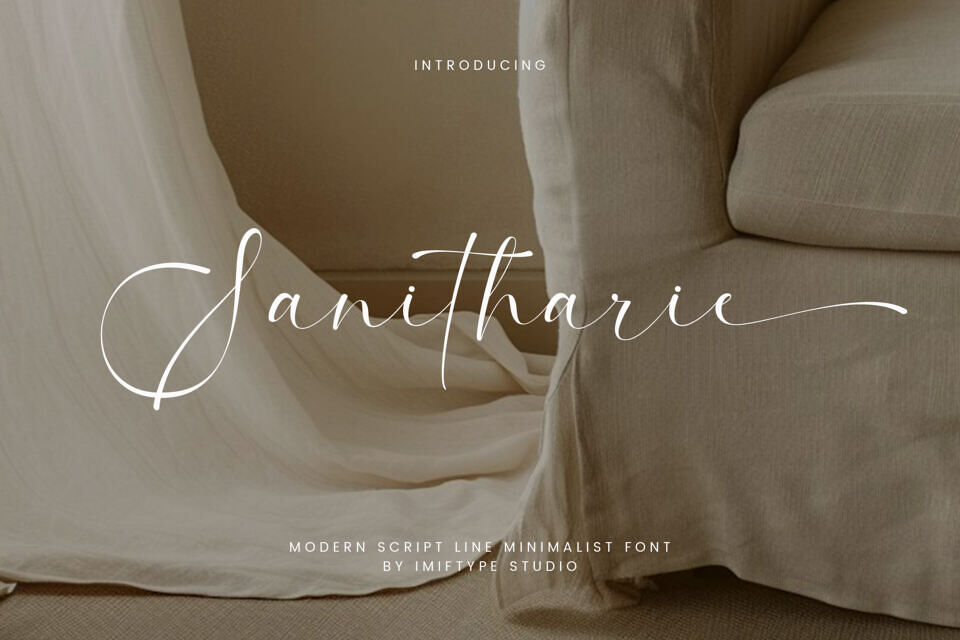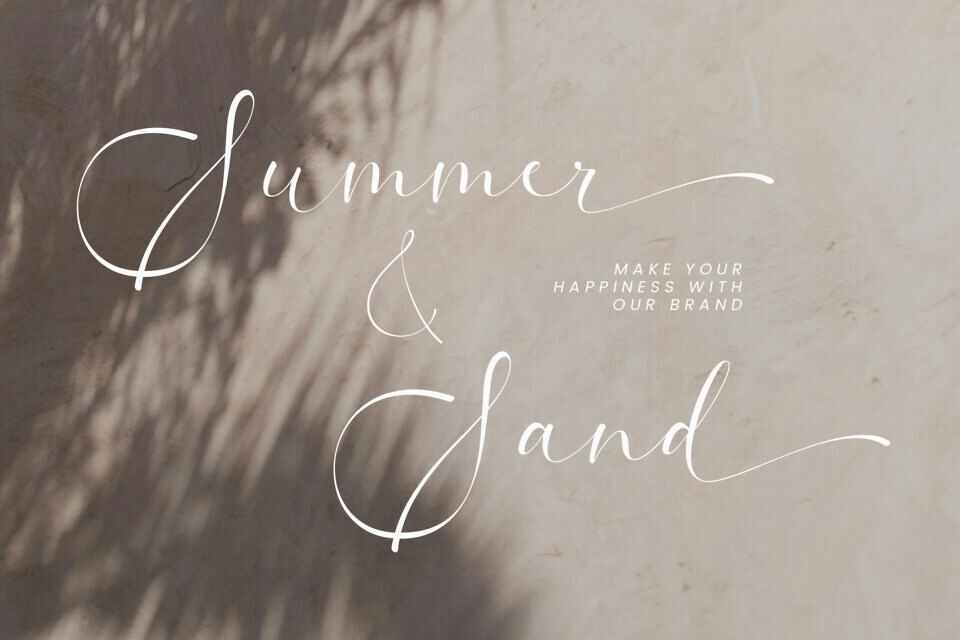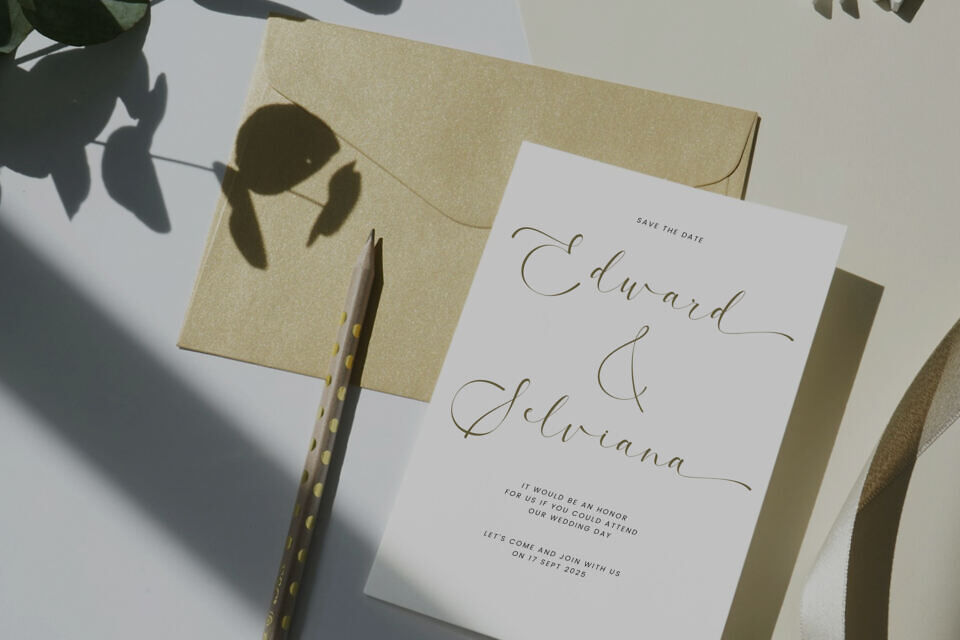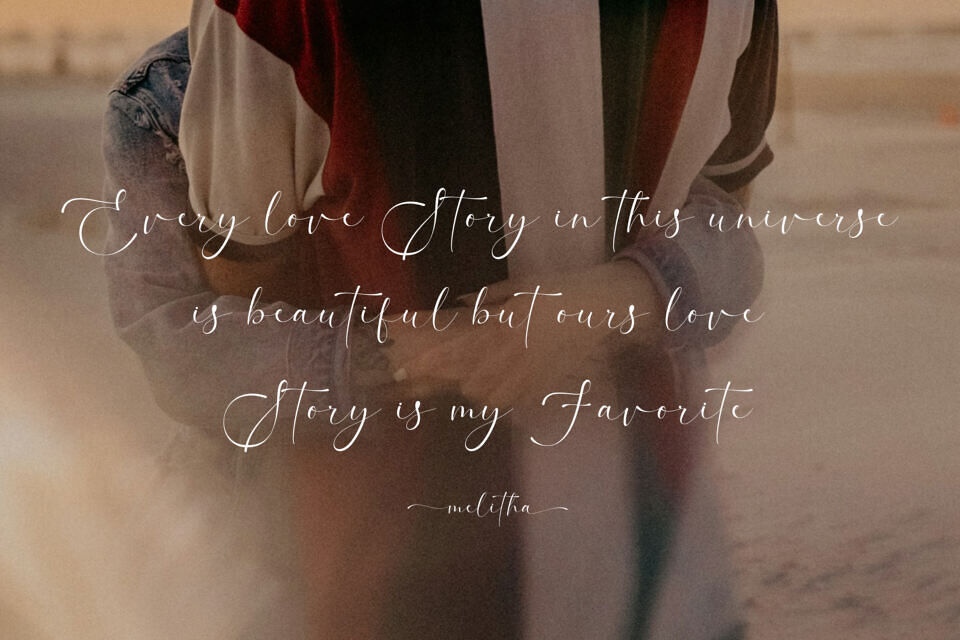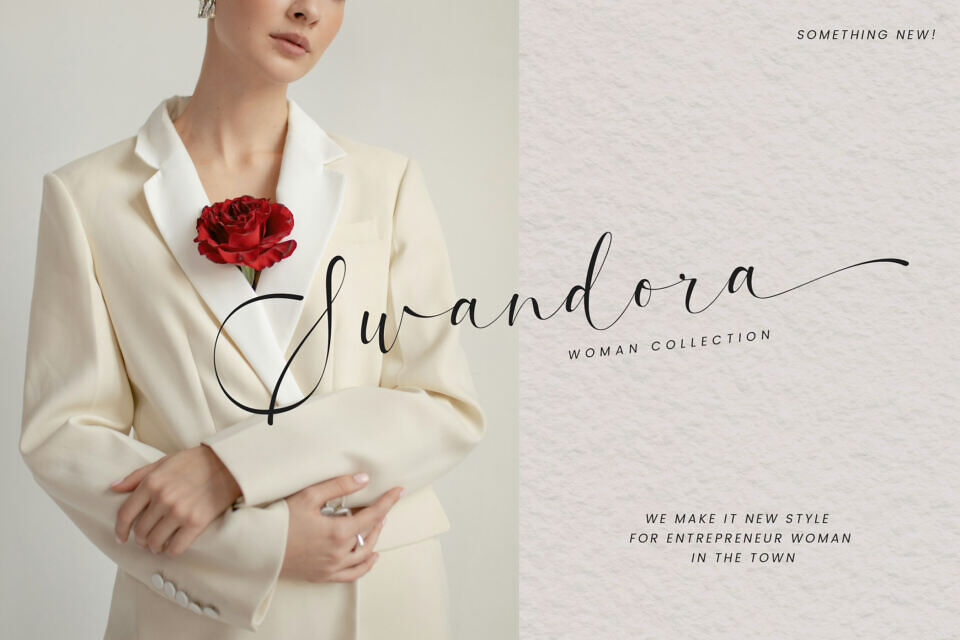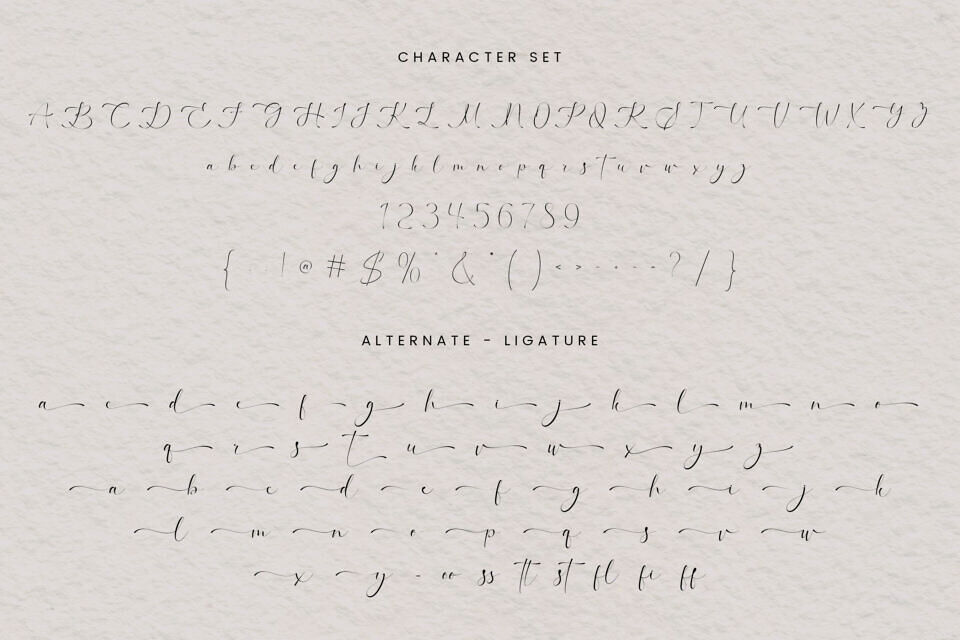
Sanitharie is a versatile script font designed to add a touch of elegance and sophistication to your projects. Its clean lines and delicate curves make it perfect for a wide range of applications, from branding and packaging to wedding invitations and social media graphics.